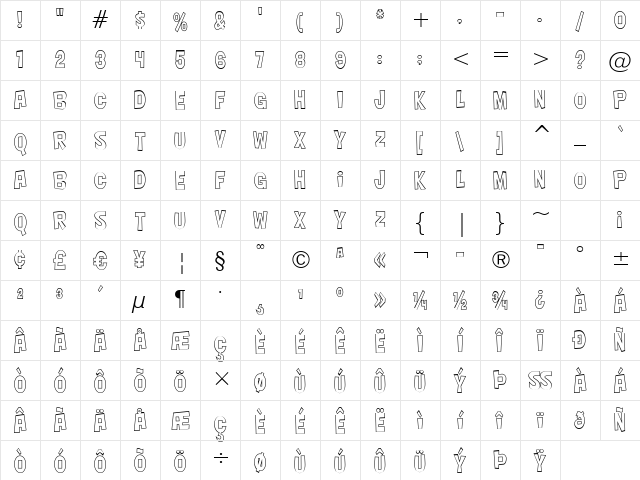
Nightclub BTN Out Cn Regular
Complete Nightclub BTN Out Cn Regular glyph index. Displaying only characters natively supported by Nightclub BTN Out Cn Regular font.
Design Context for Nightclub BTN Out Cn
Nightclub BTN Out Cn is a composed and adaptable typeface that performs quietly and consistently across a wide range of design contexts.